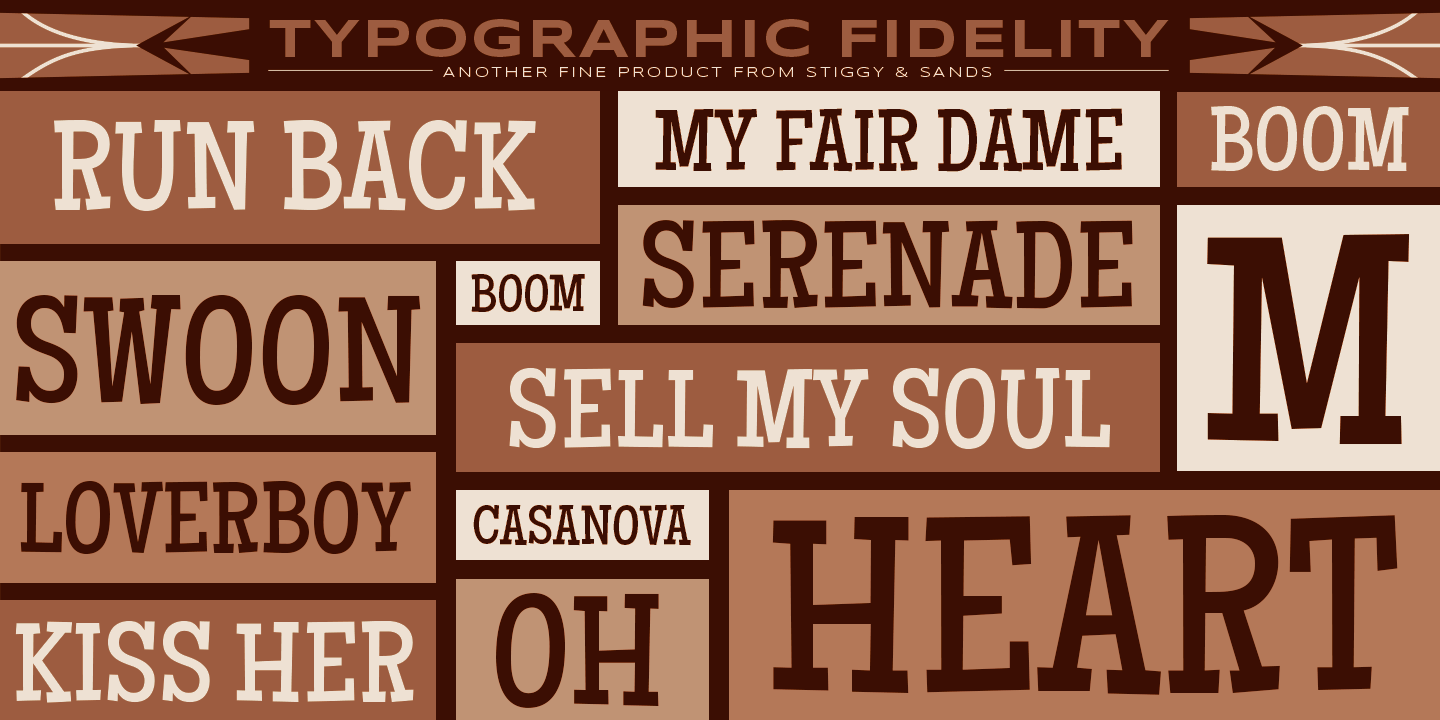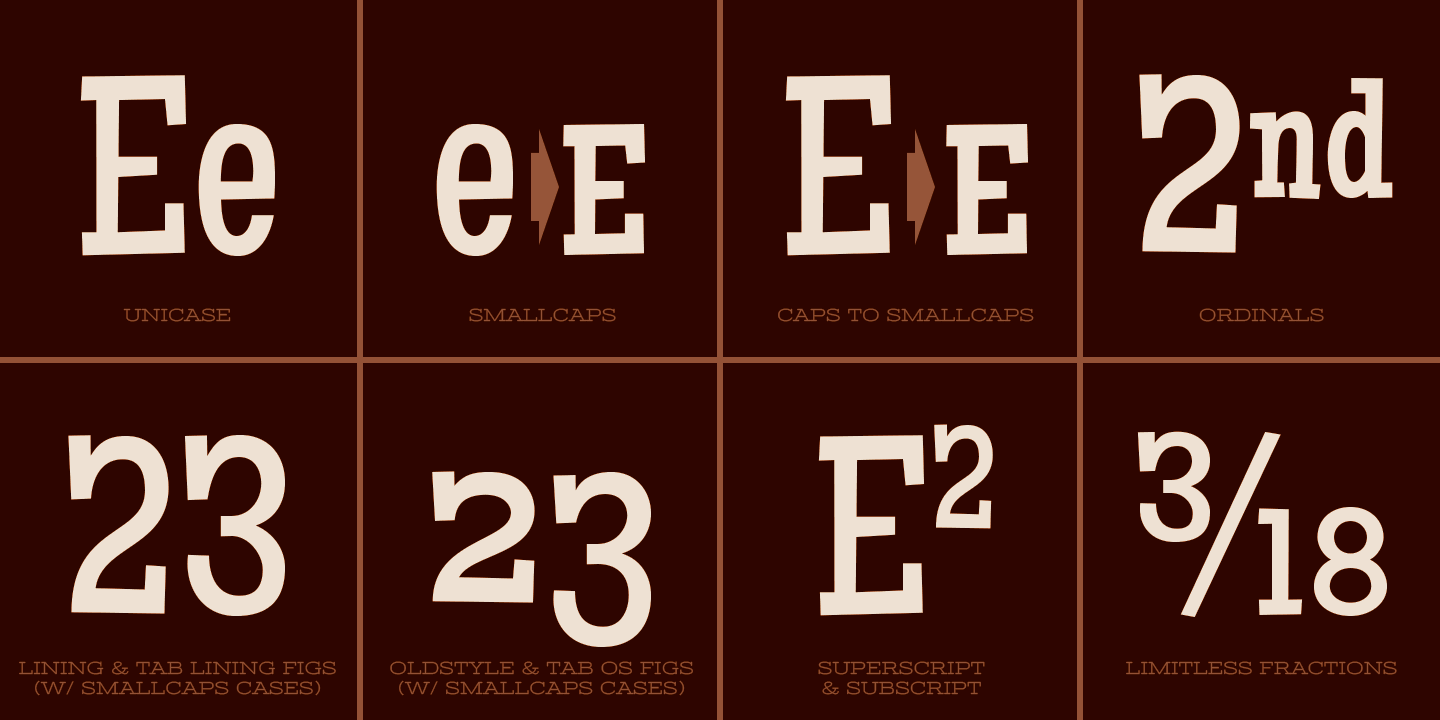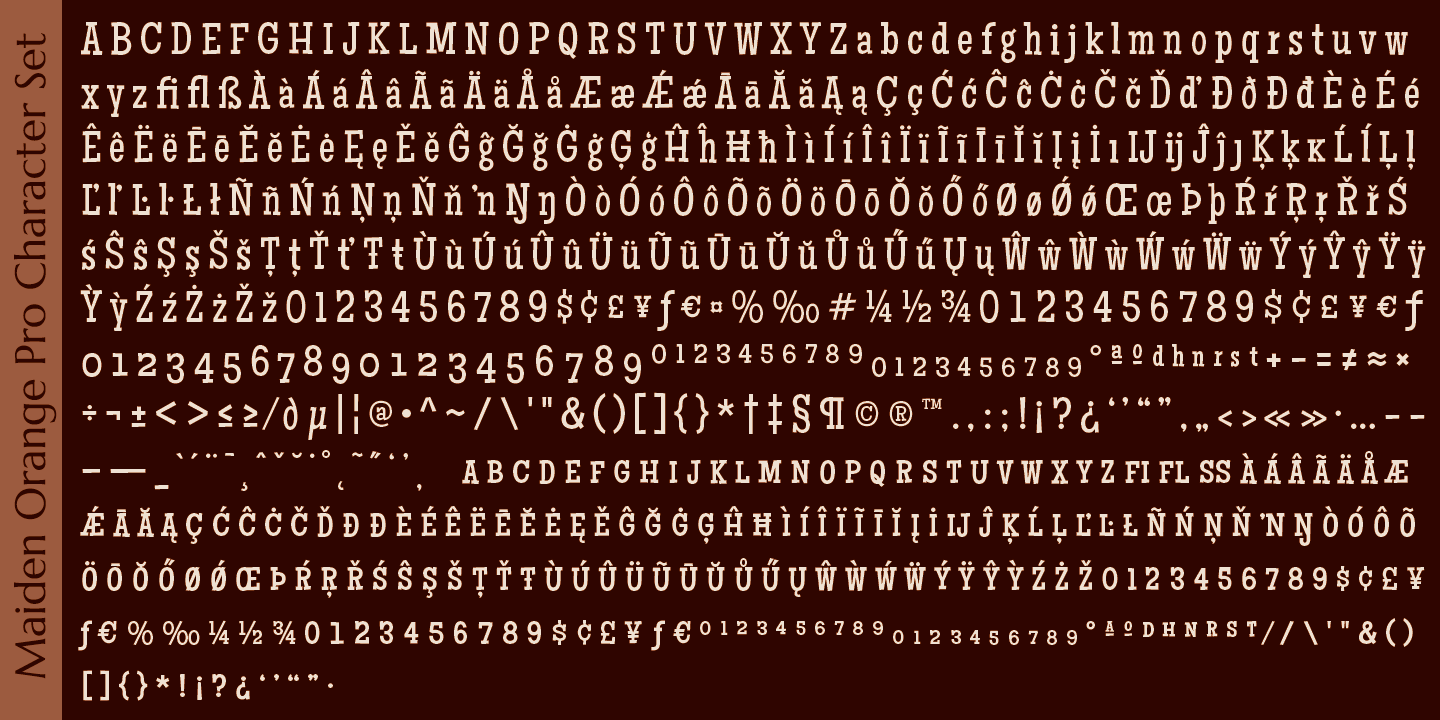
Maiden Orange Pro
Font Family by Stiggy & Sands
Our Maiden Orange Pro is a light and festive slab serif font inspired by custom hand lettered 1950's advertisements. Clean and legible, while also being offbeat and friendly, this font lends itself to a wide variety of uses. The SmallCaps and extensive figure sets offer a slightly more serious tone as well as a wider range of design use.
Opentype features include:
- SmallCaps.
- Full set of Inferiors and Superiors for limitless fractions.
- Tabular, Proportional, and Oldstyle figure sets (along with SmallCaps versions of the figures).
- Stylistic Alternates for Caps to SmallCaps conversion.